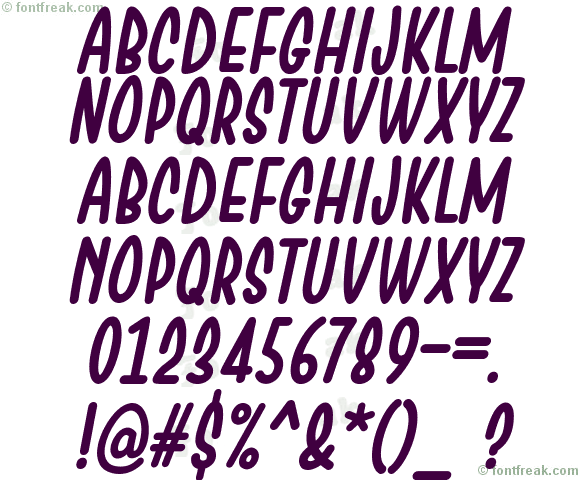
Chesan
Chesan Bold
Chesan Bold Italic
Chesan Italic
Chesan is a striking display font designed by Situjuh Nazara, categorized as a sans-serif typeface. This font features a bold and italic style, which gives it a prominent presence in any design context. The visual characteristics of Chesan include a strong stroke weight and minimal contrast, resulting in a solid, impactful appearance. The letters are spaced thoughtfully, allowing for clear readability while maintaining a modern aesthetic. Its unique flair is enhanced by subtle decorative elements that add personality without overwhelming the design.
Chesan is an excellent choice for a variety of applications. It can elevate wedding invitations with its stylish yet legible form, making special events feel even more personal. For small businesses, using Chesan in restaurant menus can create an inviting atmosphere, while its boldness makes it suitable for eye-catching movie posters. Additionally, content creators can leverage this font for social media graphics, ensuring their messages stand out in a crowded digital landscape.
The target audience for Chesan includes graphic designers, small business owners, and content creators who seek a versatile and eye-catching font. Its unique characteristics cater to those looking to make a statement while ensuring clarity and readability in their designs.
What sets Chesan apart from other fonts is its balanced blend of modernity and approachability. Its bold and italicized forms convey confidence, making it an ideal choice for projects that require a touch of sophistication. The Chesan font free download allows users to incorporate this distinctive typeface into their work effortlessly, providing an opportunity for creativity and innovation in various design projects.